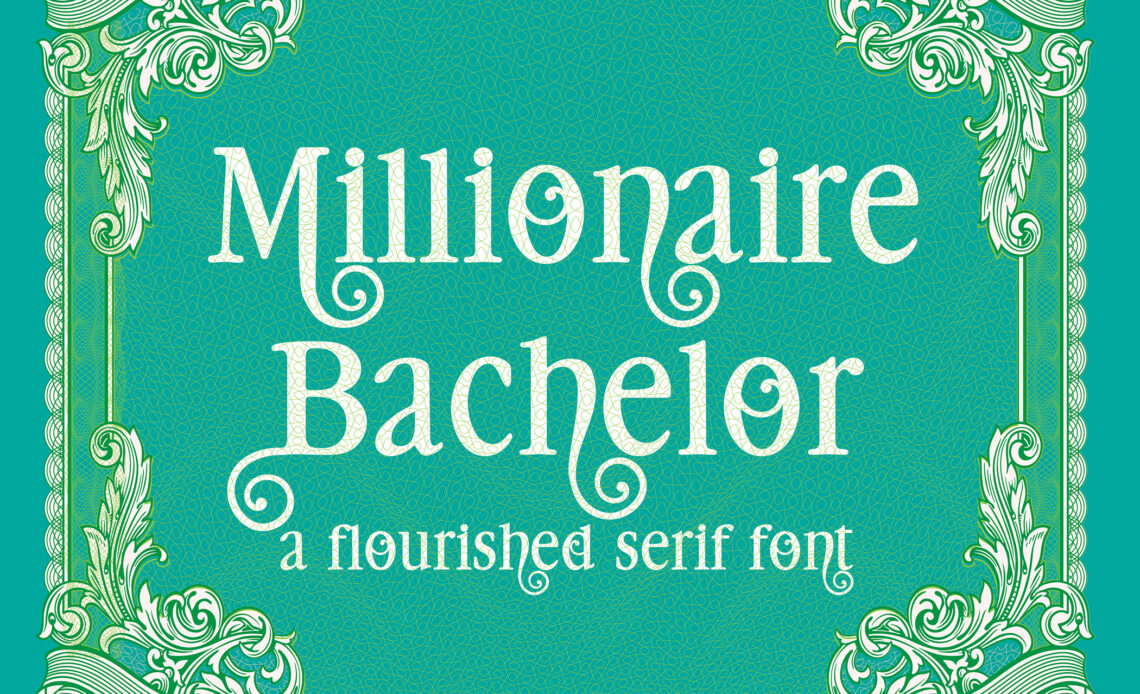
In today's digital landscape, where communication reigns supreme, your words hold the power to captivate, persuade, and inspire. Unleash the full potential of your creative expression with Millionaire Bachelor, a captivating serif font that exudes elegance and playful charm.
Millionaire Bachelor is not just a font; it's an experience that transports you to an era of timeless sophistication. Its meticulously crafted letters, adorned with intricate flourishes and stubby ascenders, evoke a sense of luxury and grandeur. Yet, beneath its formal façade lies a playful spirit, inviting you to break free from the mundane and embrace your creativity.
Picture this: you're writing a heartfelt letter to a loved one, pouring your emotions onto the page. The words flow effortlessly from your pen, guided by the graceful curves and sweeping strokes of Millionaire Bachelor. Each letter becomes a work of art, conveying not just words but also the depth of your feelings.
Or perhaps you're crafting an invitation to a special event, a gathering of hearts and minds. Millionaire Bachelor lends its refined touch, adding an air of exclusivity and anticipation. Its intricate details hint at the extraordinary experience that awaits your guests, piquing their curiosity and setting the stage for an unforgettable occasion.
But Millionaire Bachelor's allure extends far beyond formal settings. Its playful nature shines through in casual correspondence, social media posts, and even marketing materials. With its ability to infuse a touch of whimsy and lightheartedness, Millionaire Bachelor captivates audiences, leaving a lasting impression that lingers in their minds.